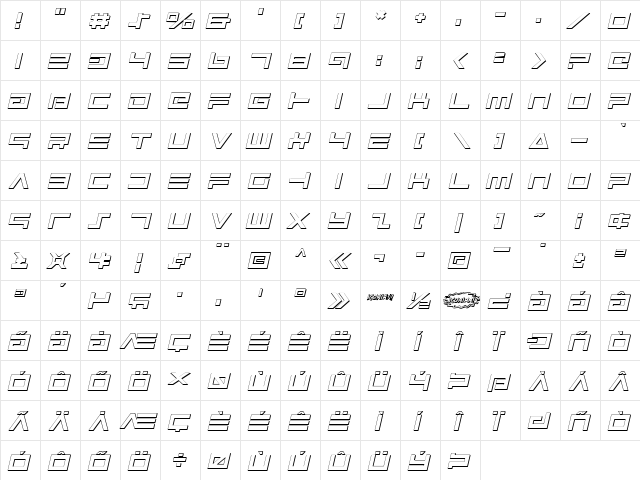
Avenger Shadow Italic Italic
Design Context for Avenger Shadow Italic Typeface
Avenger Shadow Italic is built around its visual character rather than neutral utility — its distinctive forms are designed to make an impression at display sizes. Its italic angle brings a sense of urgency and motion to the letterforms.
Font Pairing: Pair with a clean neutral sans-serif for body copy to let Avenger Shadow Italic's character lead without overwhelming the composition.
Pro Tip: Treat Avenger Shadow Italic as the centrepiece of your typographic hierarchy. One strong heading set in a decorative face can carry an entire layout.